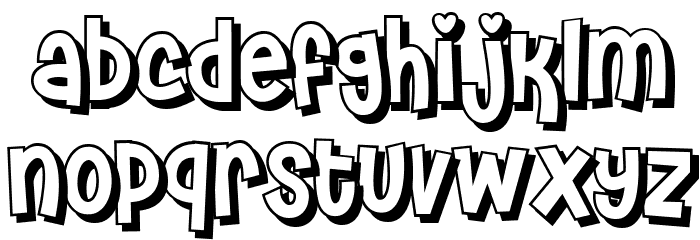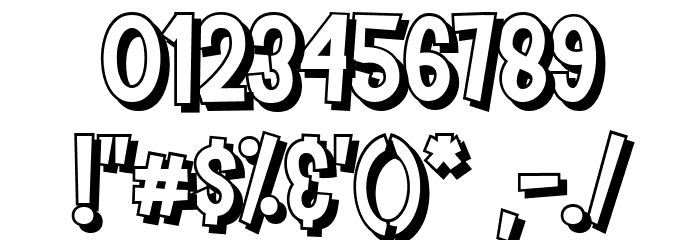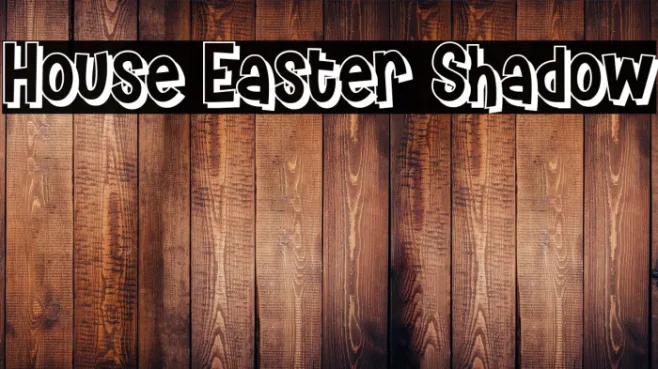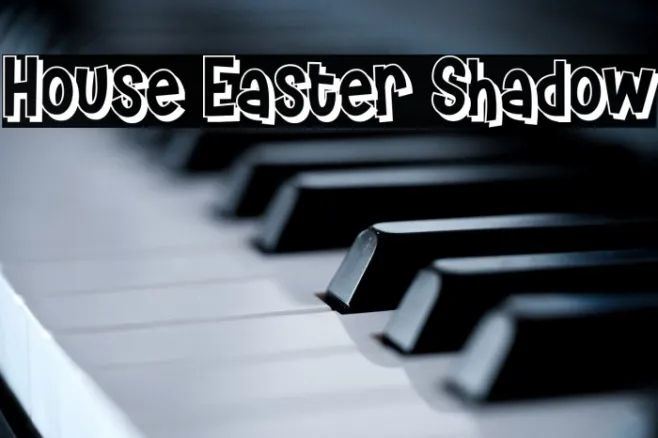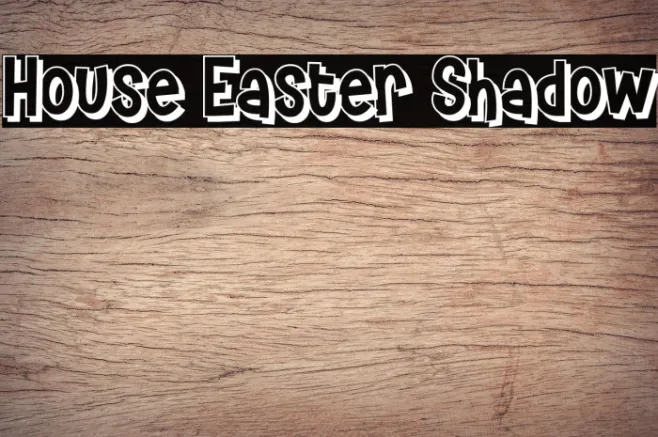
House Easter Shadow Font
This playful and bold font features a cartoonish style with a distinct shadow effect that gives it a three-dimensional appearance. The letters are rounded and slightly irregular, adding a whimsical and fun vibe. The uppercase and lowercase characters maintain a consistent style, with the lowercase letters having a slightly more compact form. The numbers and special characters follow the same playful design, making the font versatile for various creative projects. The shadow effect enhances the visual impact, making it suitable for eye-catching designs.
A playful, bold font with a cartoonish style and shadow effect.
- Font: House Easter Shadow
- Proposed Projects: Ideal for children's books, comic strips, playful branding, party invitations, and posters.
- Overall Style: Playful, Cartoonish, Fun